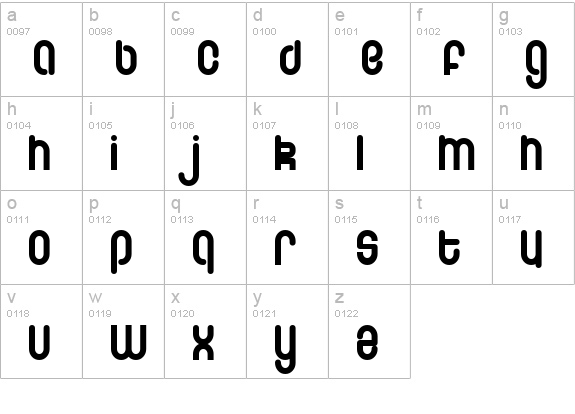
Schmotto Font Details
Introducing Schmotto font, a captivating typeface that seamlessly blends elegance with a touch of whimsy. With its unique and eye-catching design, Schmotto is sure to make a lasting impression on any project it graces. This font is the perfect choice for those seeking a versatile and visually stunning option. Its carefully crafted curves and intricate details lend an air of sophistication, while its playful and joyful spirit adds a hint of fun to your designs. Schmotto font is freely available to download at FontsMarket.com. This means that you can effortlessly access this exceptional typeface without any cost or hassle. Whether you are a professional designer or a creative enthusiast, this font is a must-have addition to your collection. The versatility of Schmotto font allows it to shine in a multitude of design projects. From branding and packaging to invitations and social media graphics, this font effortlessly adapts to any creative need. Its legibility and readability make it perfect for both headlines and body text, ensuring your message is conveyed with maximum impact. Crafted with meticulous attention to detail, Schmotto font offers a wide range of stylistic alternates, ligatures, and swashes, providing you with endless possibilities to create truly unique and personalized designs. Its extensive character set includes multilingual support, making it suitable for global audiences. Whether you're designing a wedding invitation, crafting a logo, or simply adding a touch of elegance to your next project, Schmotto font is the ideal choice. Its timeless appeal and free availability make it an undeniable asset in any designer's toolkit. Download Schmotto font for free at FontsMarket.com and elevate your designs to new heights. Unleash your creativity and let Schmotto font be the key to unlocking stunning and unforgettable visuals.